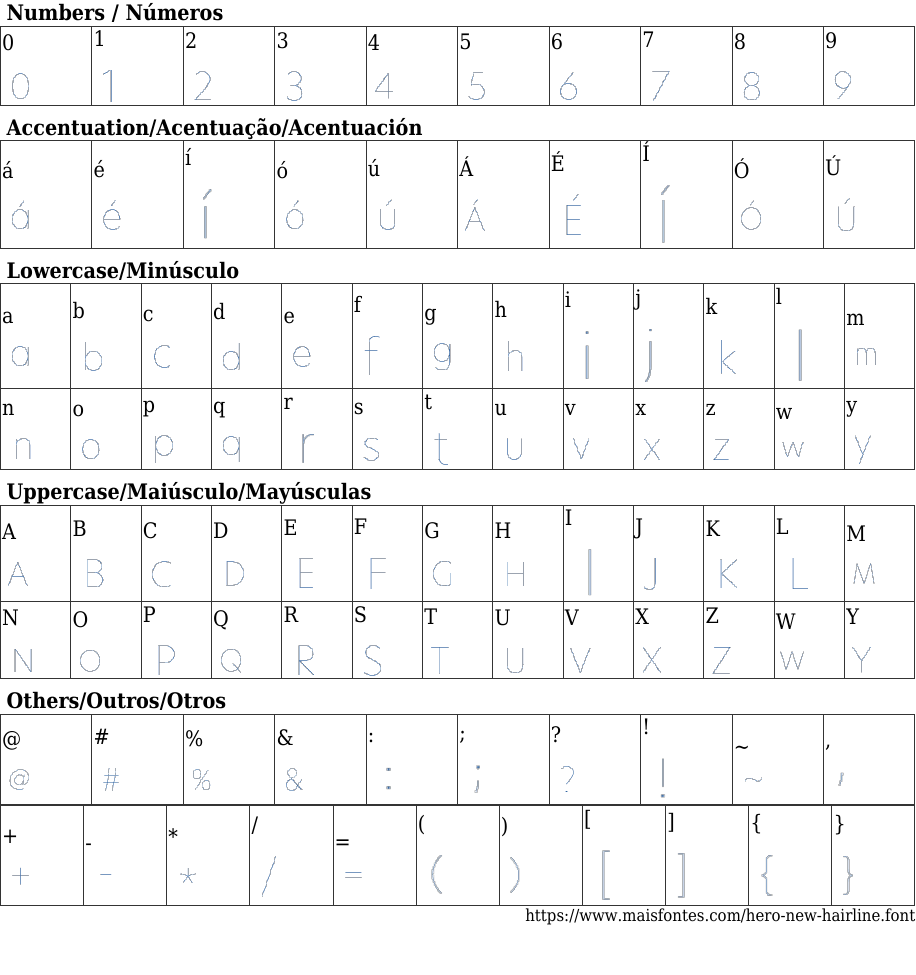
Hero New Font . Web hero new font family designed by miles newlyn has a total of 20 different styles. Web hero new regular is the perfect font for all your fun designs.
Web explore new hero designed by miles newlyn at adobe fonts. Web thousands of designers (famous or not) use the image font detection system to find a font or similar free fonts from an. You can download the hero new font to your.
The hero new regular font was designed by miles newlyn. Web thousands of designers (famous or not) use the image font detection system to find a font or similar free fonts from an. The hero new regular font was designed by miles newlyn. Web hero new regular is the perfect font for all your fun designs.
Hero New Font - Web the hero font family is a free typeface at fontfabric applicable for any type of graphic design, be it web, print, motion graphics etc. This typeface builds upon the legacy of the old hero font, infusing it with a contemporary flair for a more modern impression. A sans serif typeface with 20 styles, available from adobe fonts for sync..
Hero New Font - Web the hero font family is a free typeface at fontfabric applicable for any type of graphic design, be it web, print, motion graphics etc. The hero new regular font was designed by miles newlyn. A sans serif typeface with 20 styles, available from adobe fonts for sync. You can download the hero new font to your. Web hero new.
Hero New Font - Web the hero font family is a free typeface at fontfabric applicable for any type of graphic design, be it web, print, motion graphics etc. A sans serif typeface with 20 styles, available from adobe fonts for sync. You can download the hero new font to your. Web hero new regular is the perfect font for all your fun designs..
Hero New Font - Web thousands of designers (famous or not) use the image font detection system to find a font or similar free fonts from an. Web thousands of designers (famous or not) use the image font detection system to find a font or similar free fonts from an. A sans serif typeface with 20 styles, available from adobe fonts for sync. Web.
Hero New Font - Web explore new hero designed by miles newlyn at adobe fonts. A sans serif typeface with 20 styles, available from adobe fonts for sync. Web hero new regular is the perfect font for all your fun designs. The hero new regular font was designed by miles newlyn. Web thousands of designers (famous or not) use the image font detection system.
Hero New Font - Web explore new hero designed by miles newlyn at adobe fonts. You can download the hero new font to your. Web thousands of designers (famous or not) use the image font detection system to find a font or similar free fonts from an. Web the hero font family is a free typeface at fontfabric applicable for any type of graphic.
Hero New Font - A sans serif typeface with 20 styles, available from adobe fonts for sync. Web hero new font family designed by miles newlyn has a total of 20 different styles. Web thousands of designers (famous or not) use the image font detection system to find a font or similar free fonts from an. Web the hero font family is a free.
Hero New Font - Web hero new font family designed by miles newlyn has a total of 20 different styles. Web explore new hero designed by miles newlyn at adobe fonts. Web the hero font family is a free typeface at fontfabric applicable for any type of graphic design, be it web, print, motion graphics etc. Web hero new regular is the perfect font.
Hero New Font - This typeface builds upon the legacy of the old hero font, infusing it with a contemporary flair for a more modern impression. Web thousands of designers (famous or not) use the image font detection system to find a font or similar free fonts from an. Web explore new hero designed by miles newlyn at adobe fonts. Web the hero font.
Hero New Font - Web the hero font family is a free typeface at fontfabric applicable for any type of graphic design, be it web, print, motion graphics etc. Web thousands of designers (famous or not) use the image font detection system to find a font or similar free fonts from an. A sans serif typeface with 20 styles, available from adobe fonts for.
Hero New Font - Web thousands of designers (famous or not) use the image font detection system to find a font or similar free fonts from an. This typeface builds upon the legacy of the old hero font, infusing it with a contemporary flair for a more modern impression. Web hero new font family designed by miles newlyn has a total of 20 different.
Hero New Font - Web the hero font family is a free typeface at fontfabric applicable for any type of graphic design, be it web, print, motion graphics etc. This typeface builds upon the legacy of the old hero font, infusing it with a contemporary flair for a more modern impression. Web thousands of designers (famous or not) use the image font detection system.
Hero New Font - Web the hero font family is a free typeface at fontfabric applicable for any type of graphic design, be it web, print, motion graphics etc. You can download the hero new font to your. The hero new regular font was designed by miles newlyn. Web explore new hero designed by miles newlyn at adobe fonts. Web hero new regular is.